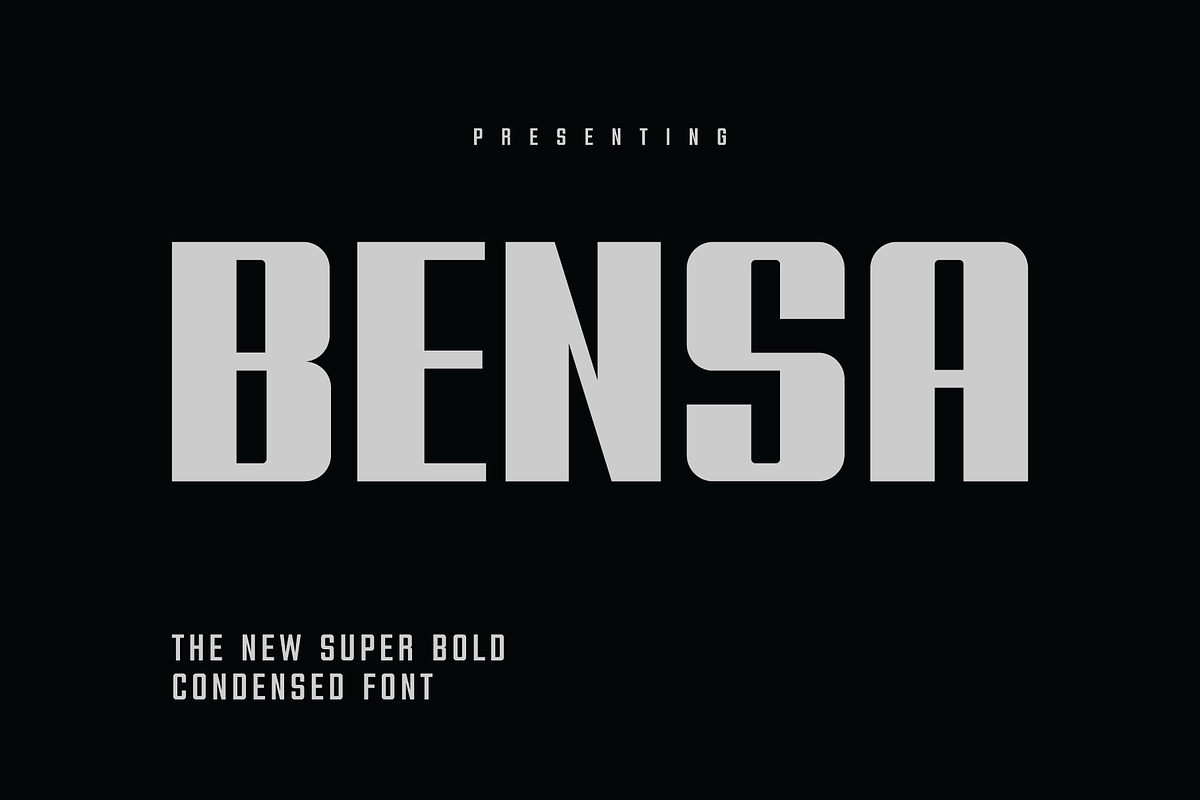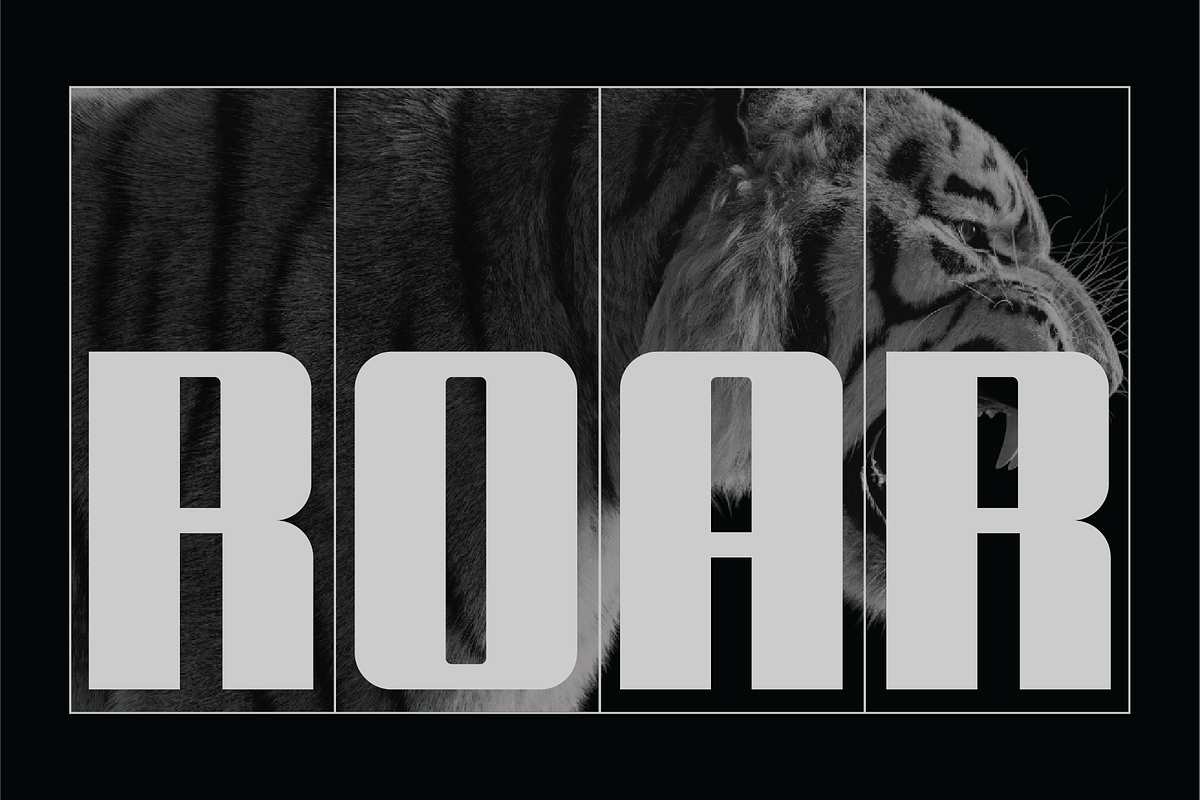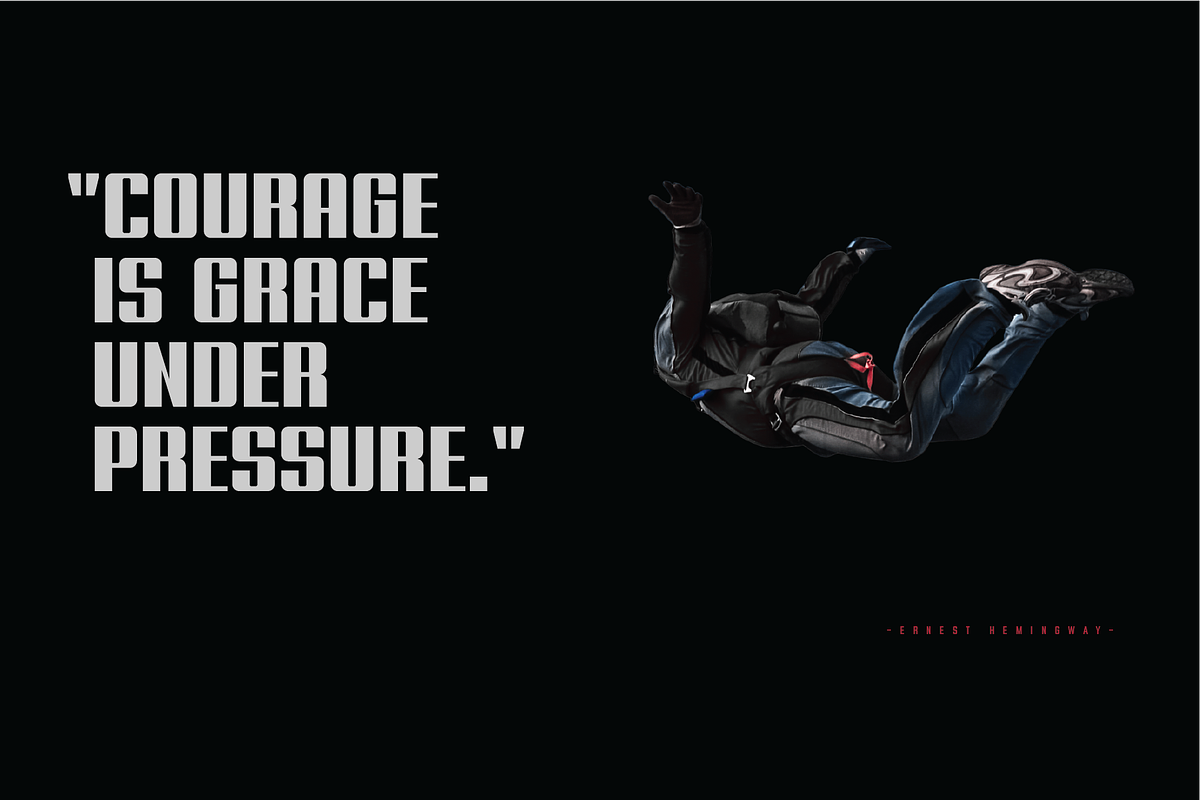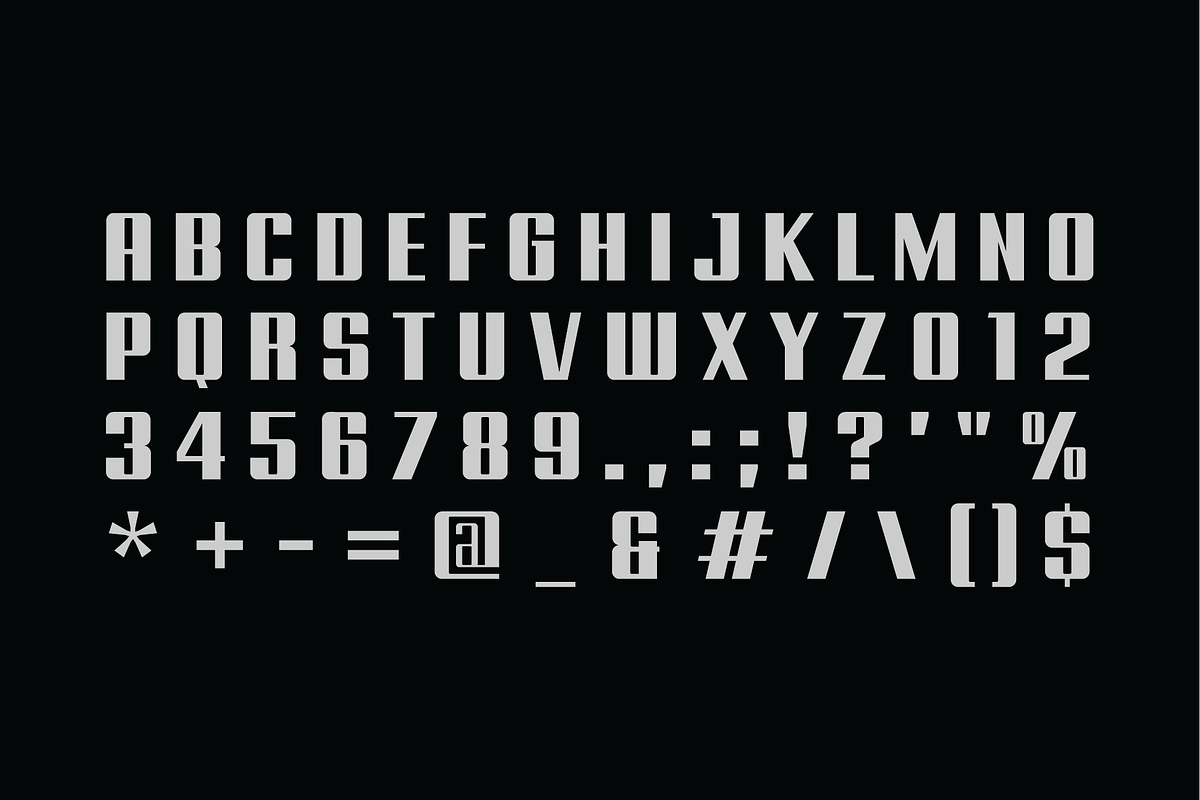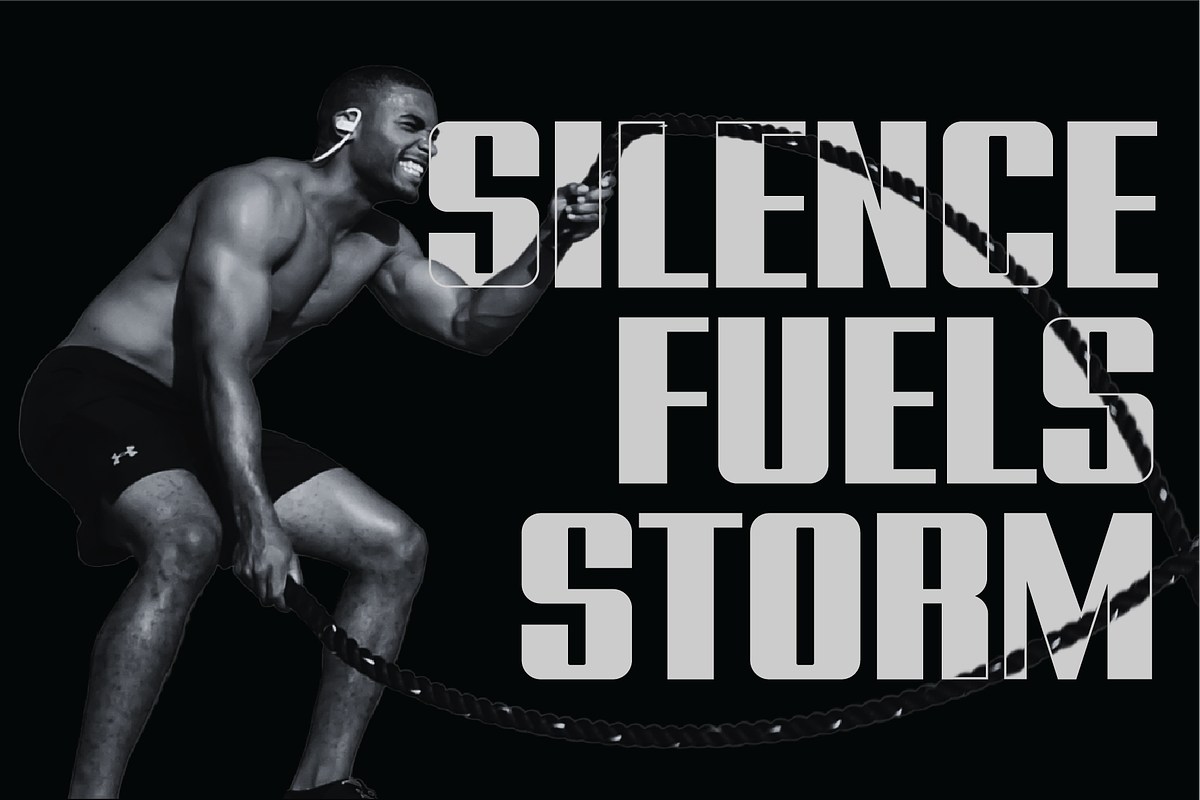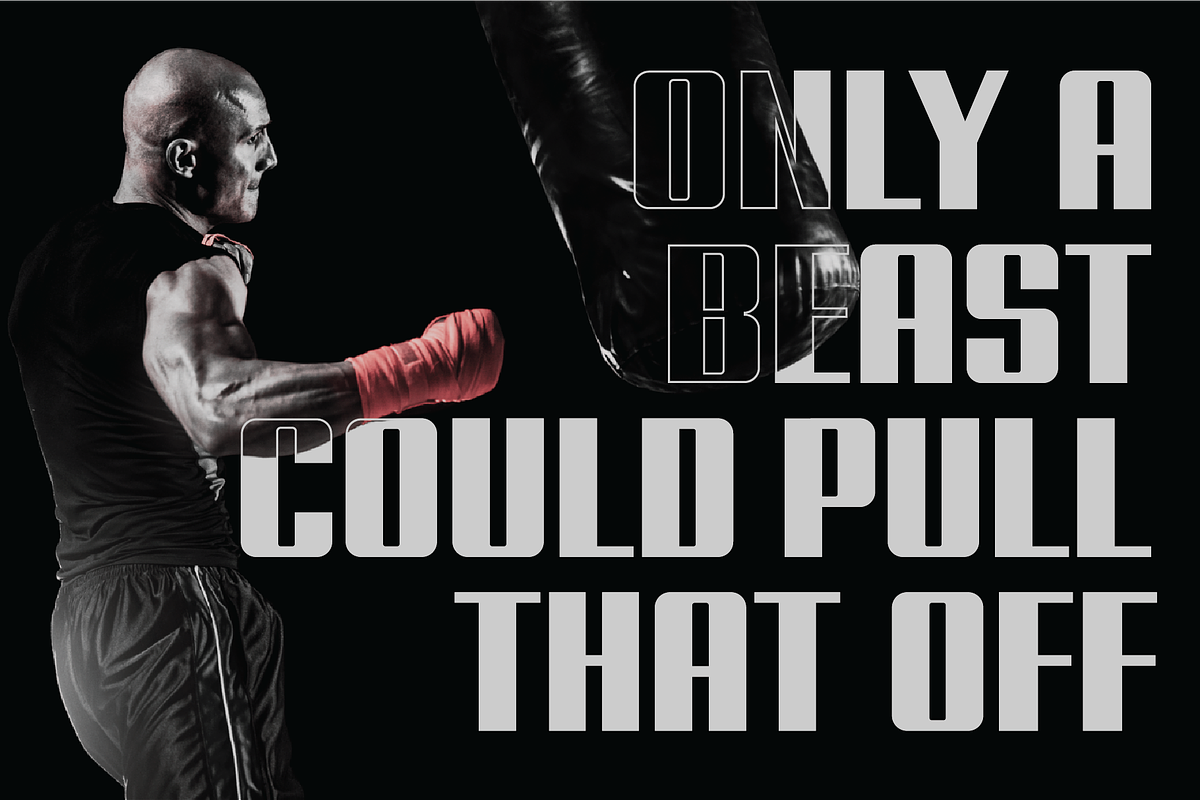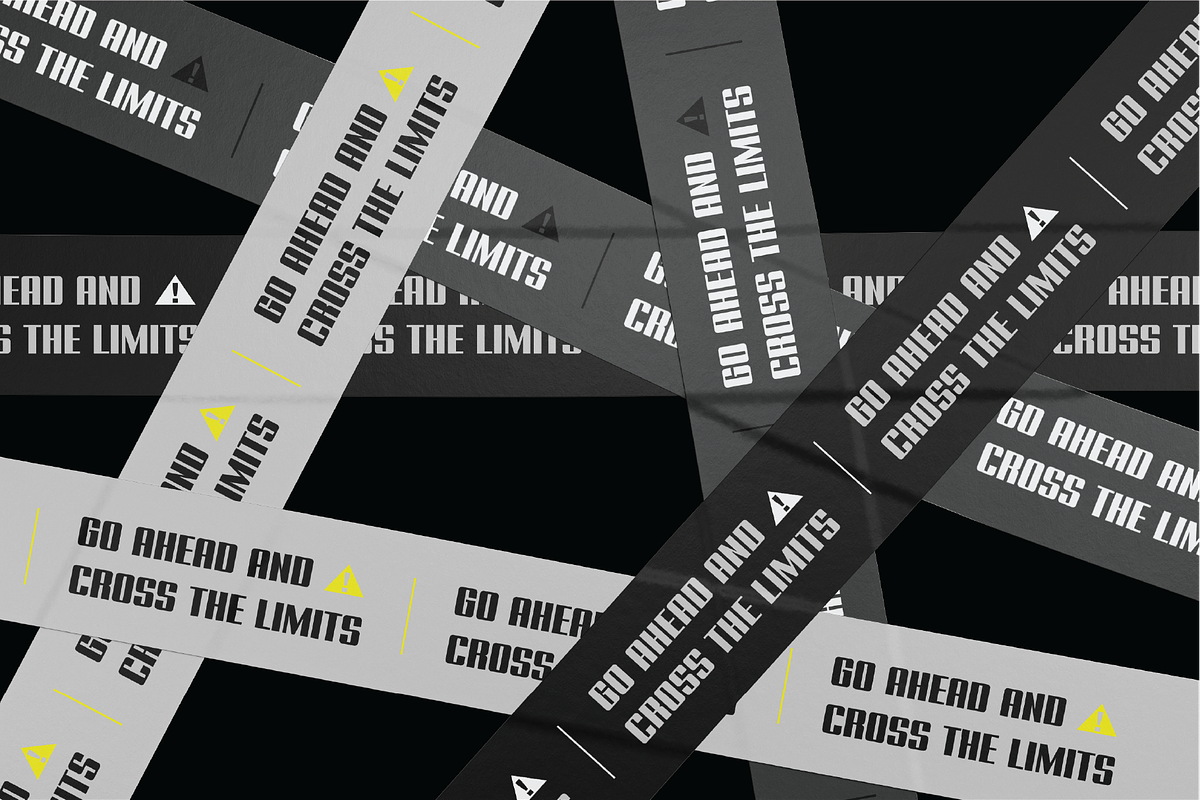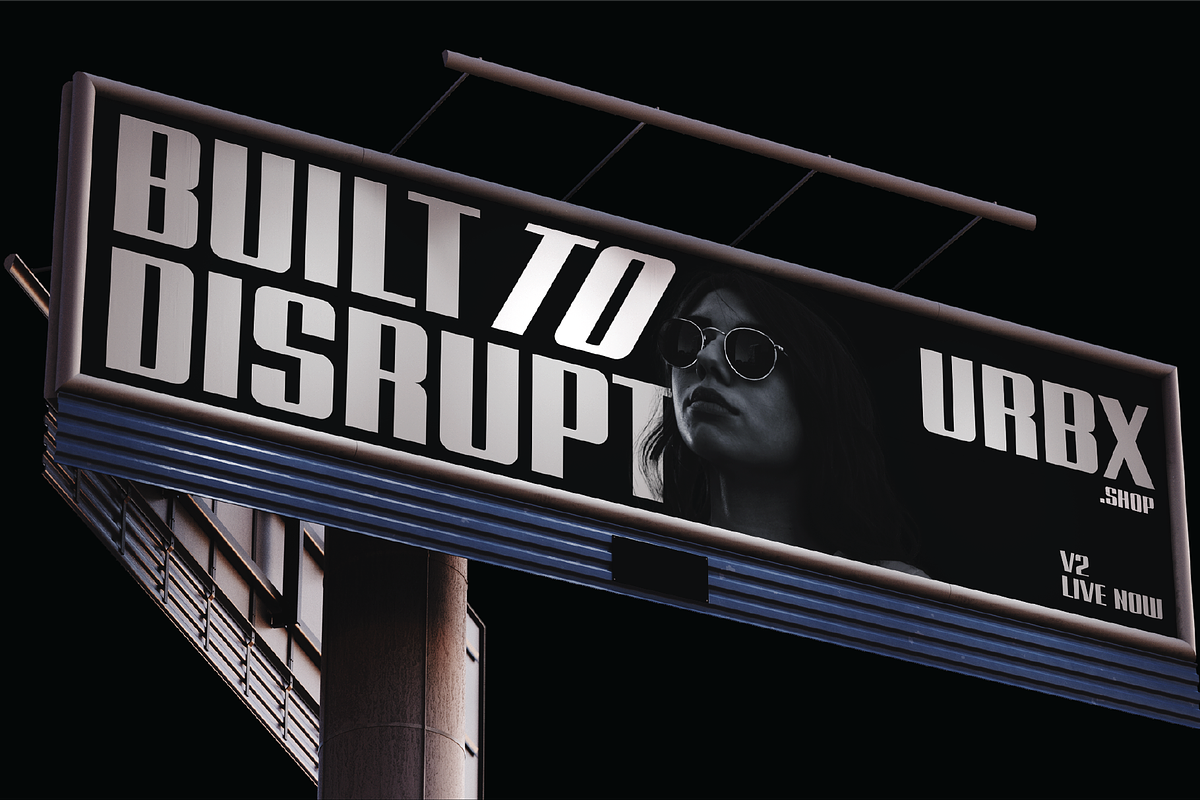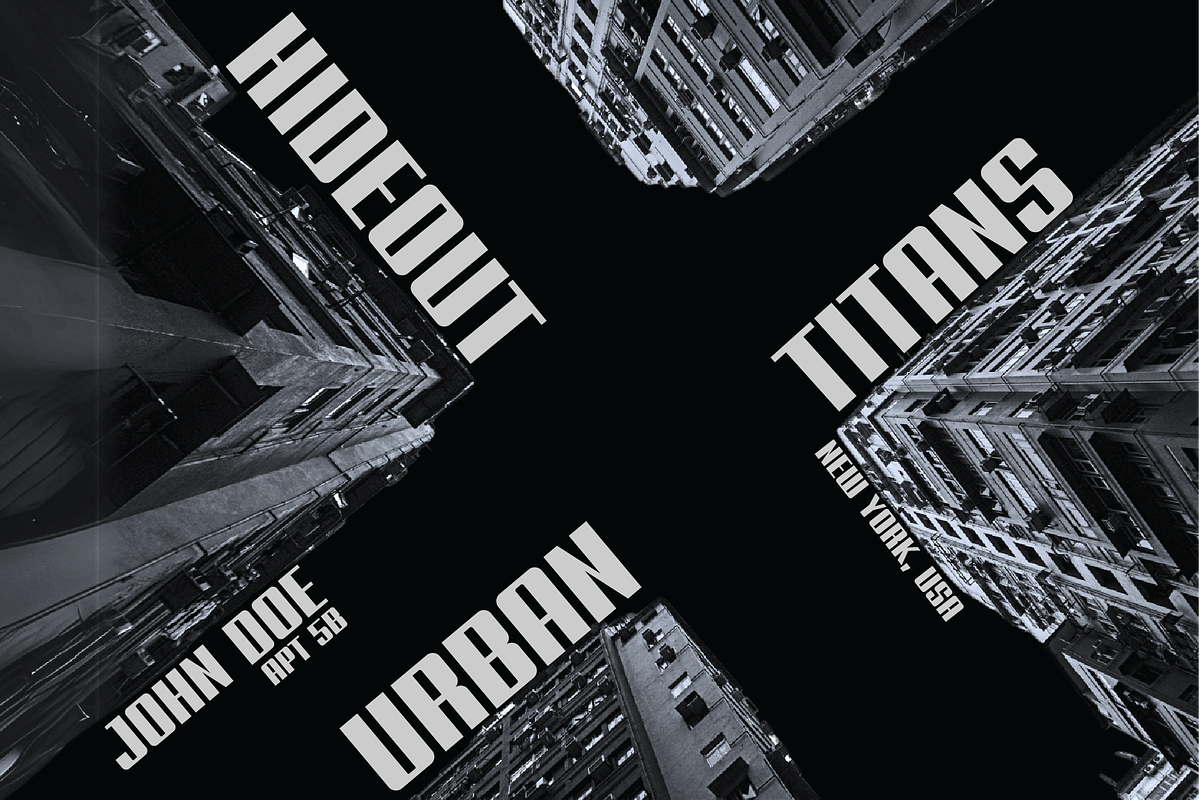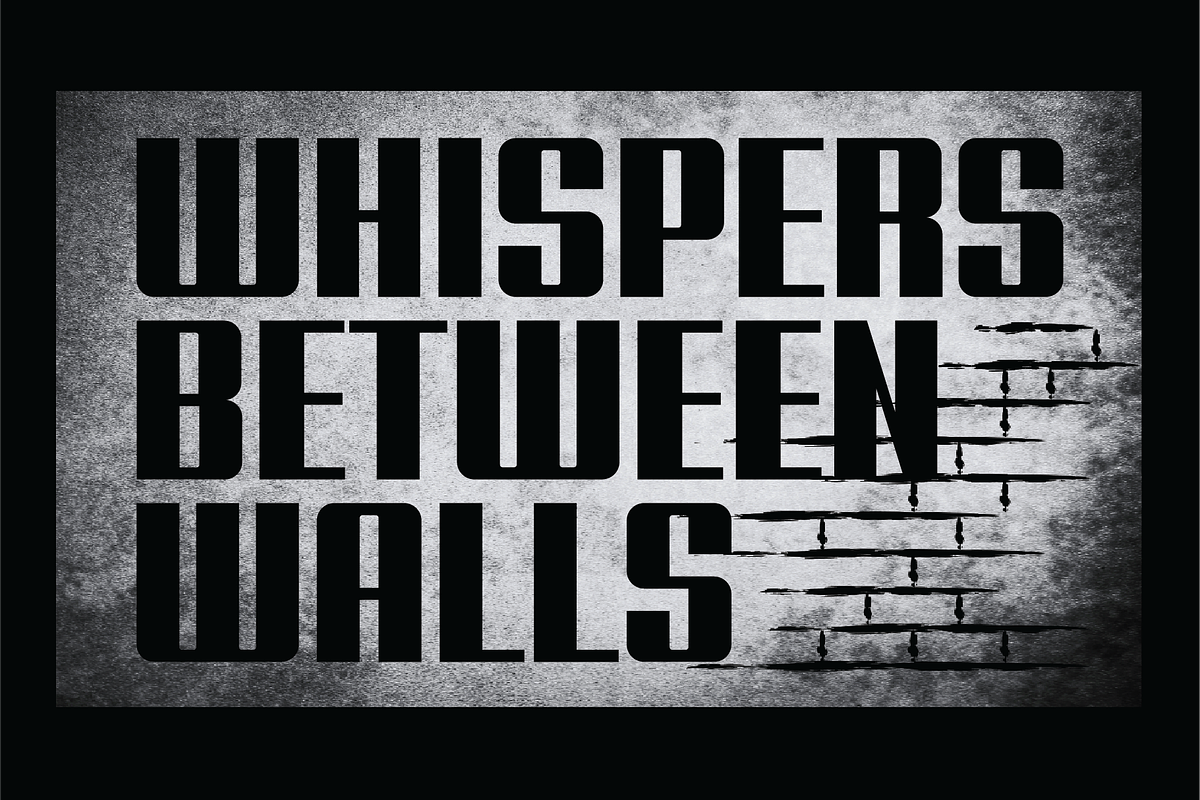
Bensa Bold Condensed Sans Serif
BENSA is a super bold, condensed sans serif font specially designed to make an impact. This bold font has thick lines, sharp edges, and a strong, modern vibe. BENSA grabs attention and makes a loud statement—it doesn’t whisper, it roars. This strong, condensed font is perfect for bold messages, powerful branding, and headlines that don’t hold back.